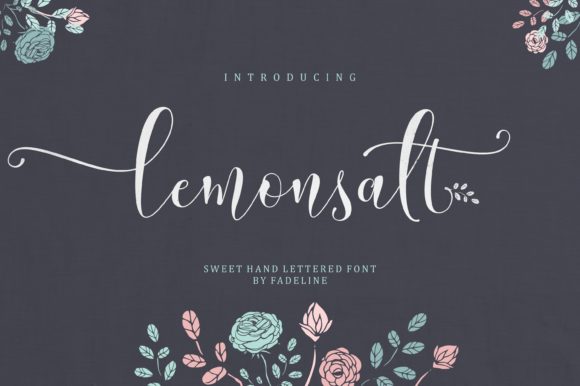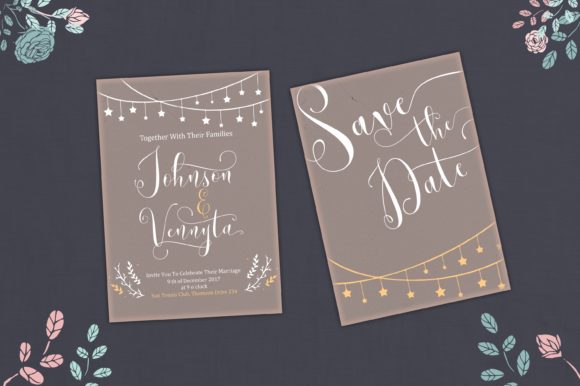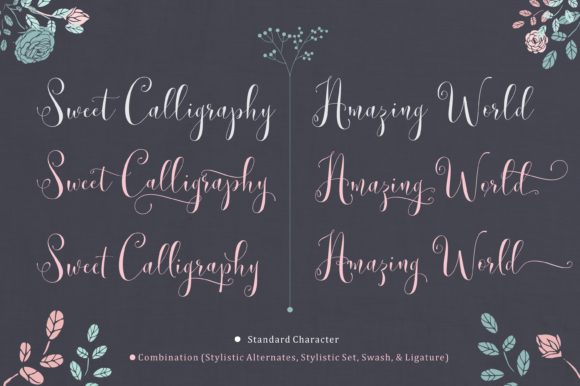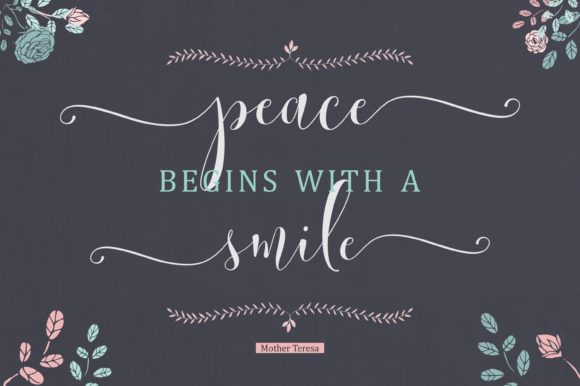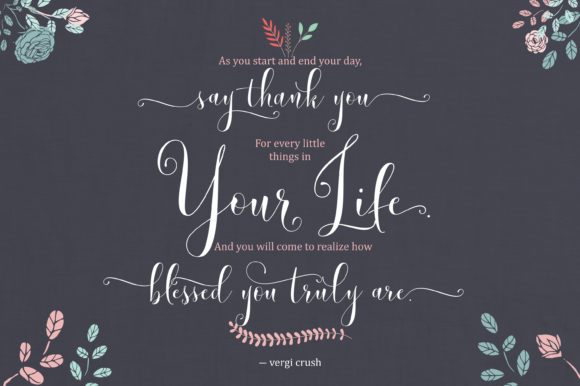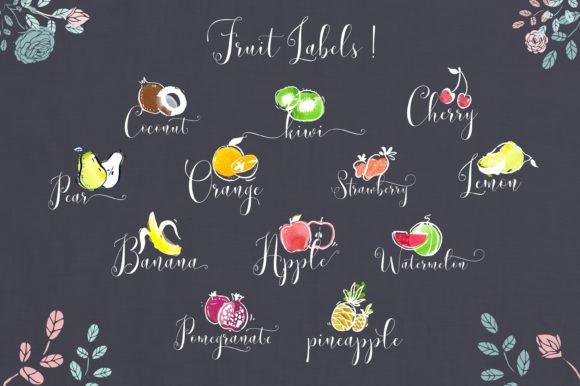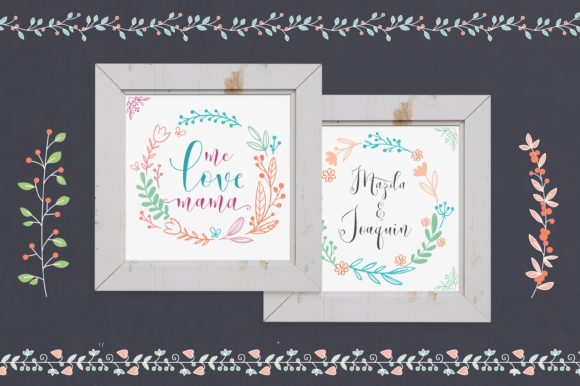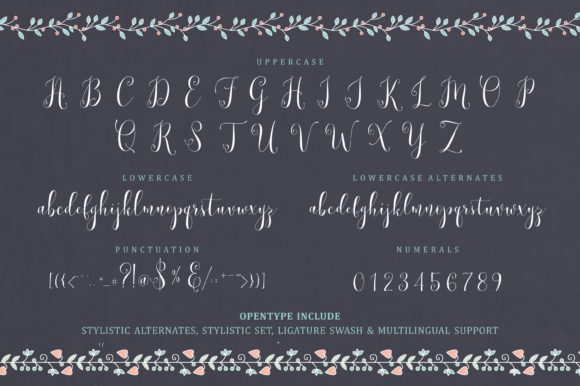
Lemonsalt Font
About Lemonsalt Font
Lemonsalt is an incredibly romantic and radiant handwritten font with a cool feel. Use it to add a stunning feel to any design project.